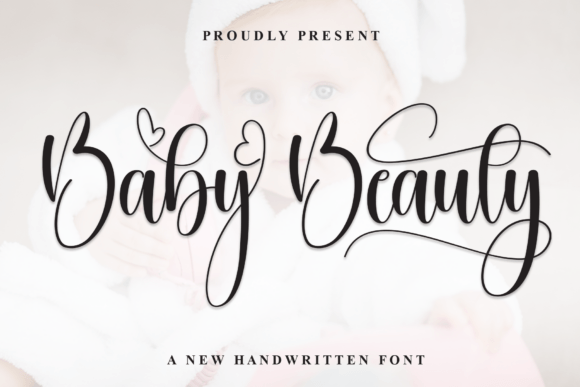
The Perfect Script: Unveiling the Baby Beauty Font
Have you ever been in a creative flow, surrounded by endless possibilities, and suddenly a spark of inspiration hits you? That’s exactly what happened when designers stumbled upon the Baby Beauty Font. This elegant script font is a masterpiece that adds a touch of whimsy and sophistication to any design project.
Baby Beauty Font is a versatile and stylish font, perfect for crafting beautiful wedding invitations, heartfelt thank you cards, or even creating a stunning logo for your brand. Its delicate curves and flowing lines evoke a sense of romance and elegance, making it a valuable asset for designers looking to add a handwritten touch to their work.
Baby Beauty Font Key Features
- Font Family: Baby Beauty Font is a unique, hand-drawn font designed to evoke a sense of innocence and playfulness.
- Unique Characteristics: The font features intricate details, soft curves, and playful flourishes, making it ideal for designs targeting young audiences, such as children’s books, nursery decorations, and baby products.
Review of Baby Beauty Font
When I first laid eyes on the Baby Beauty Font, I was immediately drawn to its playful and whimsical feel ✨. The font’s rounded edges and cursive script evoke a sense of innocence and charm, making it perfect for nursery decor, children’s books, or any project that requires a touch of sweetness.
The font’s versatility is another strong point ✨. It comes in a range of weights and styles, allowing users to customize the look to suit their needs. Whether you’re looking for a bold, eye-catching headline or a delicate, elegant subtitle, Baby Beauty Font has got you covered.
However, there are a few limitations to consider ⚠️. The font’s lack of boldness and condensed styles may make it less suitable for projects that require a lot of text or require a more dramatic impact. Additionally, some users may find the font’s cursive script to be overly ornate or difficult to read at smaller sizes.
Overall, I would give the Baby Beauty Font 4 out of 5 stars. While it may not be the most versatile font out there, its unique charm and playful feel make it a great choice for projects that require a touch of whimsy. With a little creativity, users can work around the font’s limitations and create stunning designs that showcase its best qualities.
- Rounded edges and cursive script for a playful, whimsical feel
- Versatile range of weights and styles
- Perfect for nursery decor, children’s books, or any project that requires a touch of sweetness
- Lack of boldness and condensed styles may limit its use
- Cursive script may be overly ornate or difficult to read at smaller sizes
Use the Baby Beauty Font for:
– Baby shower invitations and decorations
– Children’s party graphics and social media posts
– Nursery decor and sign designs